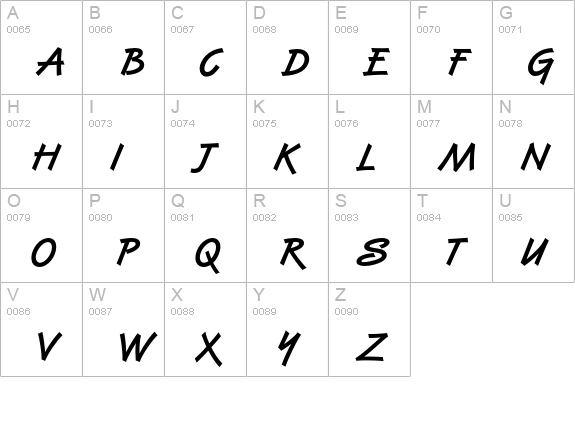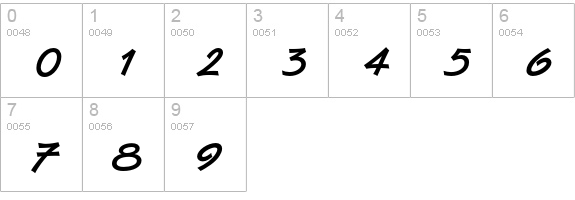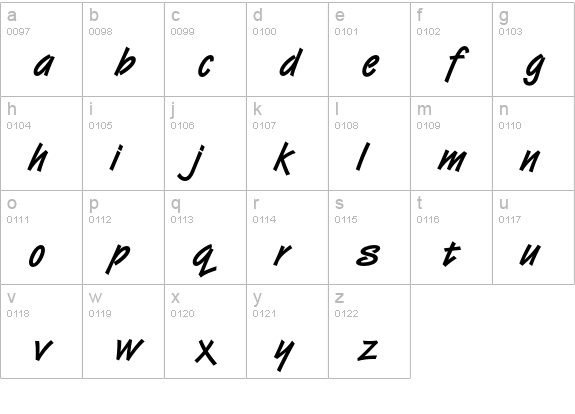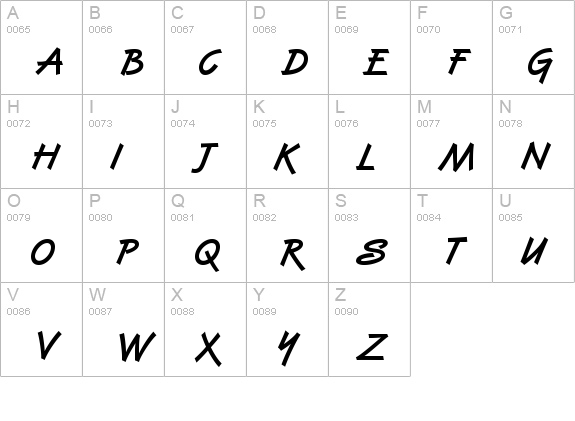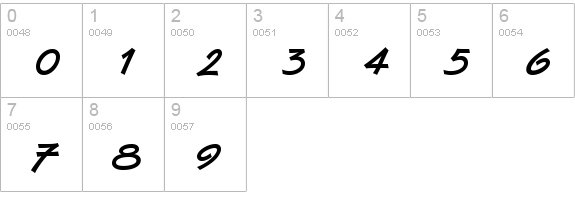
VanDijkICG-Bold Font Details
VanDijkICG-Bold is a strong, high-contrast variant in the VanDijkICG typeface family \xE2\x80\x94 well suited to headlines, attention-grabbing titles, and strong calls-to-action.
VanDijkICG-Bold is a stunning typeface that exudes elegance and power. Its bold and confident letterforms make a bold statement, capturing attention and leaving a lasting impression. This font is perfect for headlines, titles, and any design project that requires a touch of sophistication. With its clean and well-defined shapes, VanDijkICG-Bold offers excellent legibility even at smaller sizes, ensuring that your message is clear and easy to read. Its generous spacing and strong vertical proportions add to its distinctive and impactful appearance. What sets VanDijkICG-Bold apart is that it is available for free. Yes, you read that right! This remarkable font can be freely downloaded at FontsMarket.com. This means that you can enhance your designs with a professional and stylish font without breaking the bank. Whether you're a graphic designer, web developer, or simply someone who appreciates quality typography, VanDijkICG-Bold is a must-have in your font collection. Embrace the versatility and beauty of VanDijkICG-Bold, and let it elevate your designs to new heights. Its timeless appeal will ensure that your projects stand out from the crowd, making a lasting impact on your audience. Download VanDijkICG-Bold today and unleash your creativity with this remarkable font.